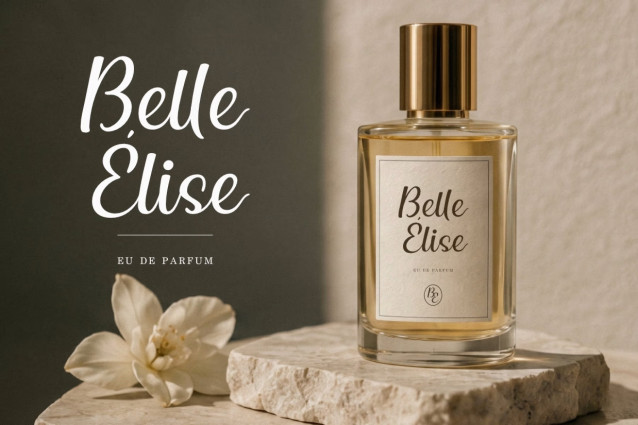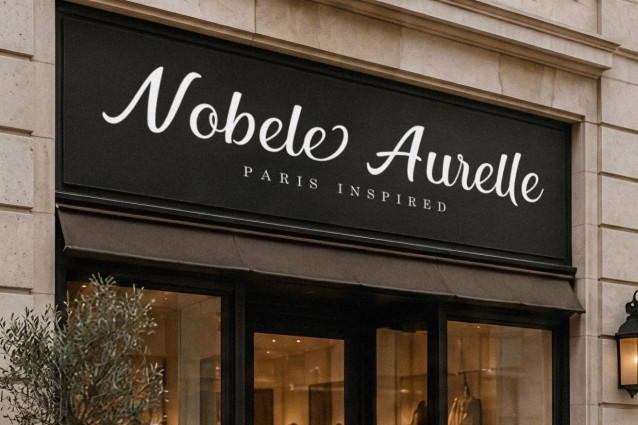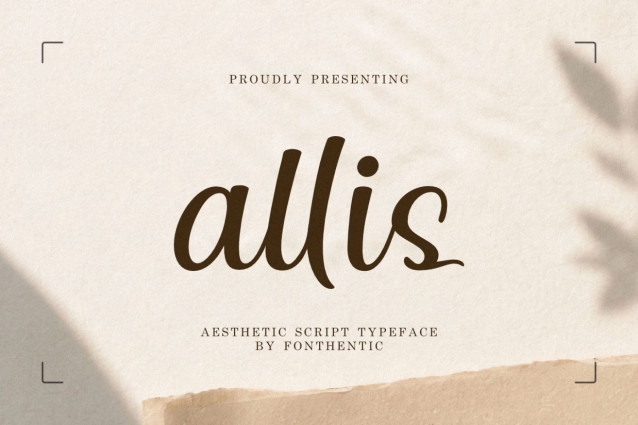
Allis Font
Allis is an elegant script font crafted with smooth monoline strokes, graceful curves, and balanced proportions that create a refined handwritten rhythm. The letterforms feature soft transitions, open counters, and elongated vertical structures that give words an airy, sophisticated presence. Distinctive characters such as the flowing lowercase l, rounded a, and gently extended terminals create a signature silhouette that feels both contemporary and timeless. The consistent stroke weight enhances readability while preserving the natural movement of handwriting, making every word appear polished and intentional.
Designed for brands that value understated luxury, Allis brings elegance to fashion identities, beauty packaging, perfume labels, boutique signage, editorial layouts, wedding stationery, and premium social media content. Its stylistic alternates are thoughtfully designed for word endings, allowing designers to create more graceful finishing strokes and refined typography without altering the entire word structure. This selective approach helps achieve a custom-lettered appearance while maintaining consistency, readability, and brand recognition.